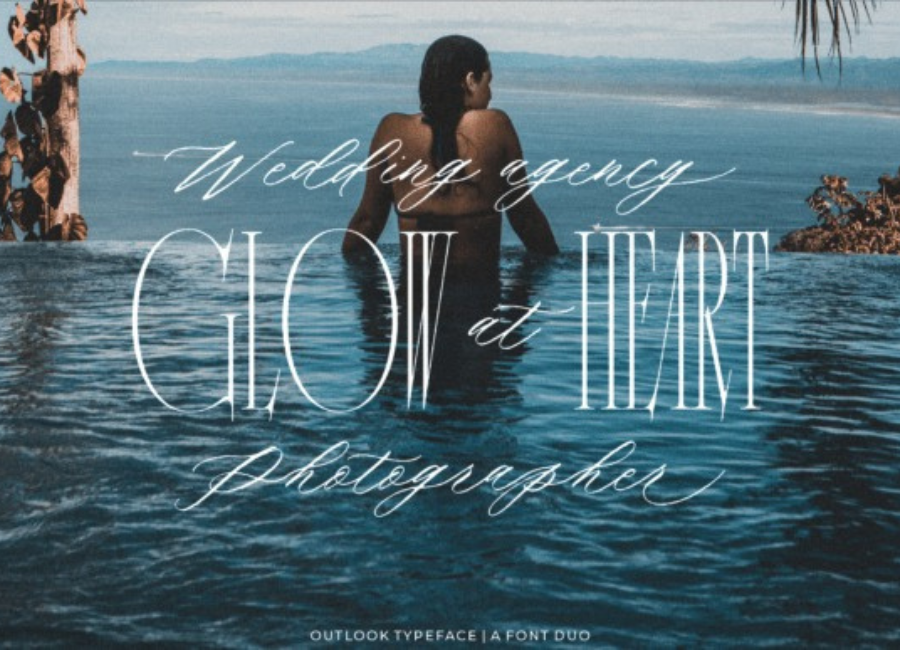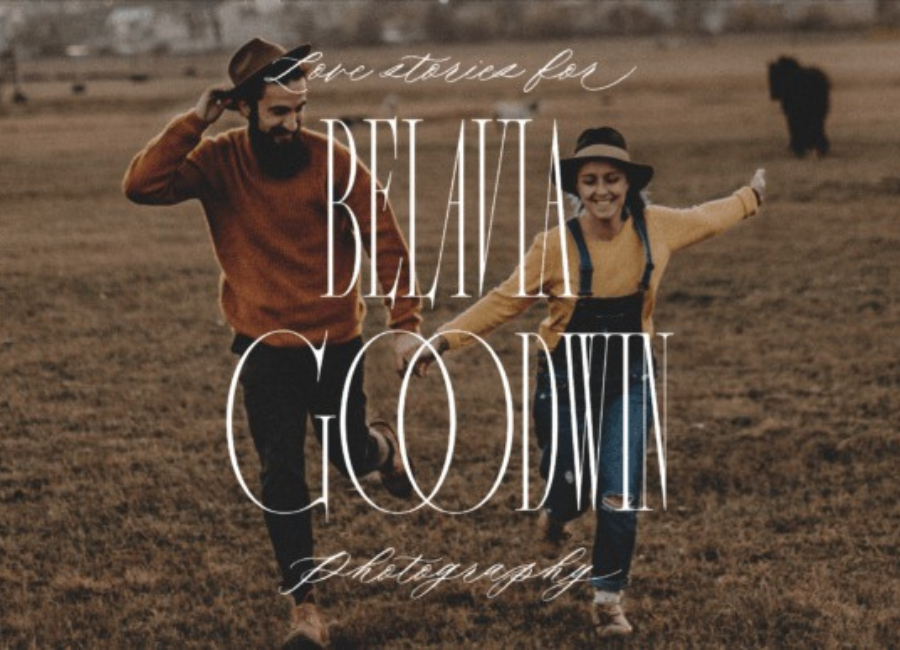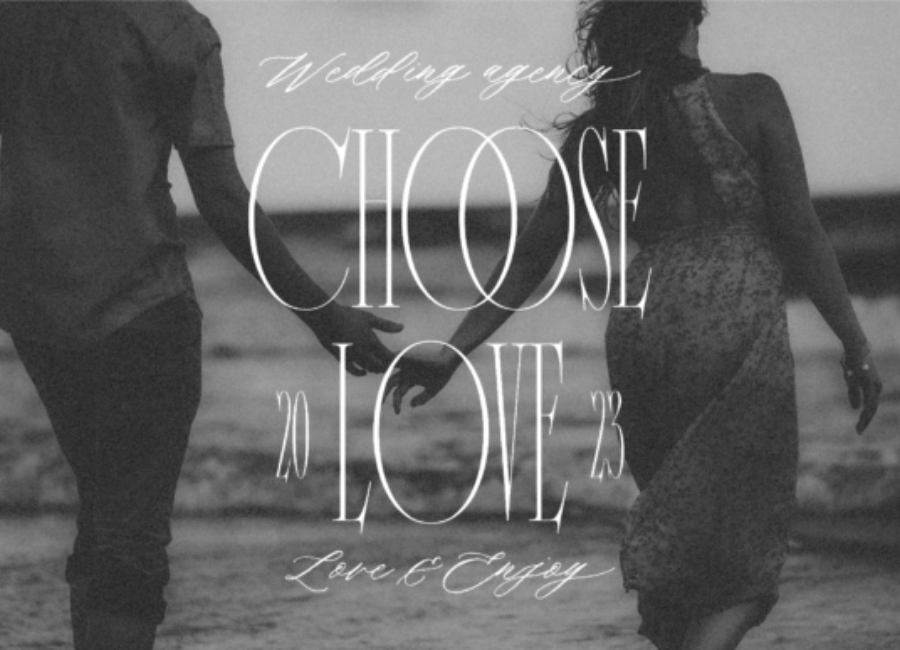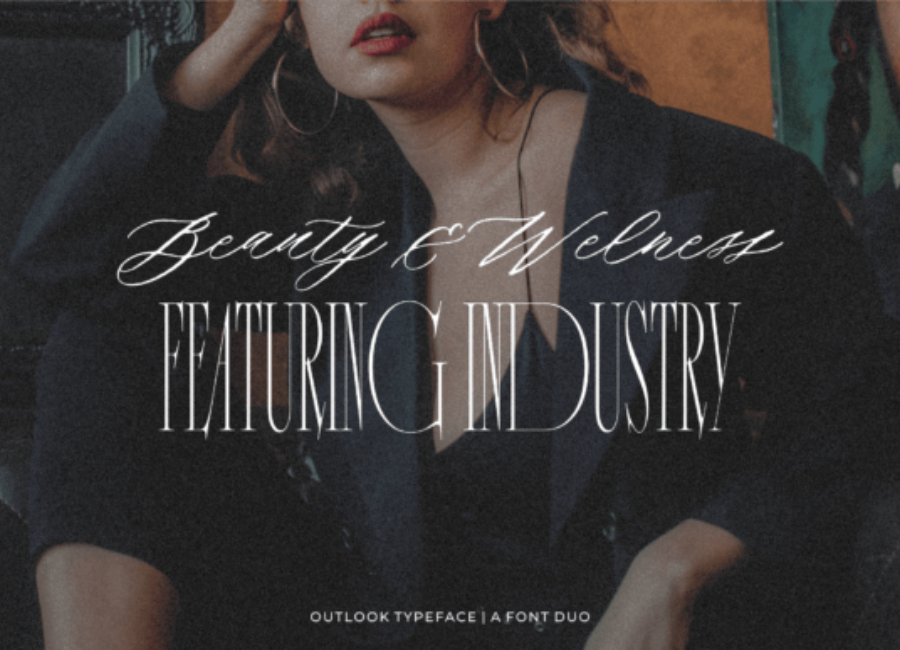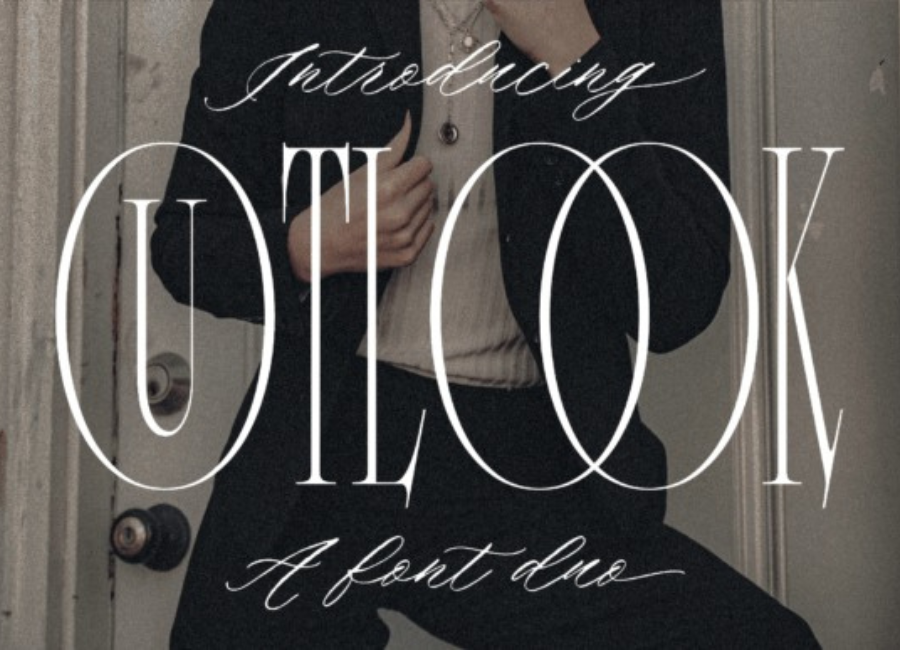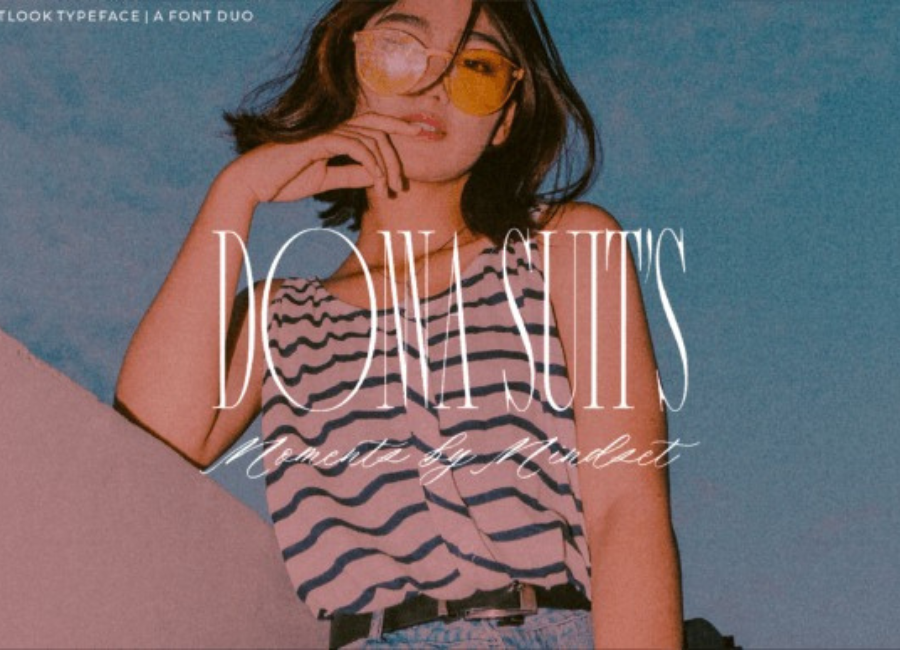
Outlook Font Duo Font
Outlook Font Duo – A Modern Typeface Pair for Stylish & Versatile Designs
Typography is one of the most powerful tools in visual communication. The right font combination can transform a simple message into a professional, emotional, and visually engaging design. Among the many typeface combinations available today, Outlook Font Duo stands out as a clean, modern, and highly versatile pairing created to simplify design workflows while delivering a polished aesthetic.
The Outlook Font Duo typically combines two complementary typefaces—often a bold or expressive display font paired with a clean, readable sans-serif or serif font. This duo approach allows designers to create balanced layouts effortlessly, making it ideal for branding, editorial work, digital media, and print projects.